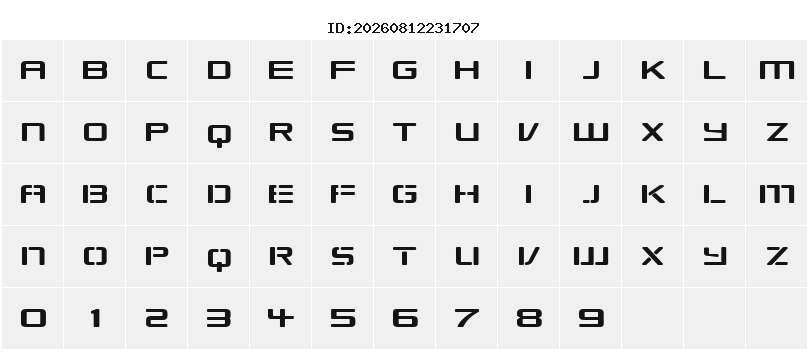
• Font Name: Republikaps Exp
• Full Font Name: Republikaps Exp
• Designer: Apostrophe (')
About Republikaps Exp.ttf
Republikaps Exp.ttf is a modern, elegant sans-serif font designed for ultimate readability and visual harmony. Perfect for branding, headlines, web design, and print materials.